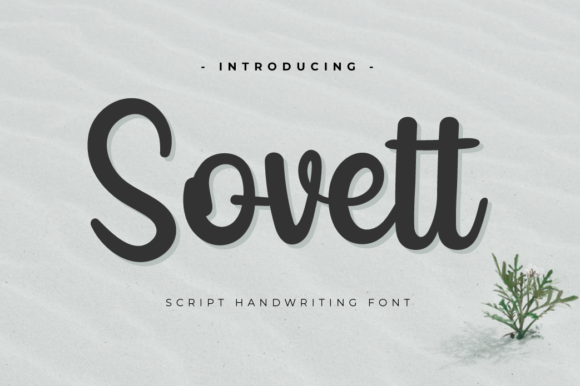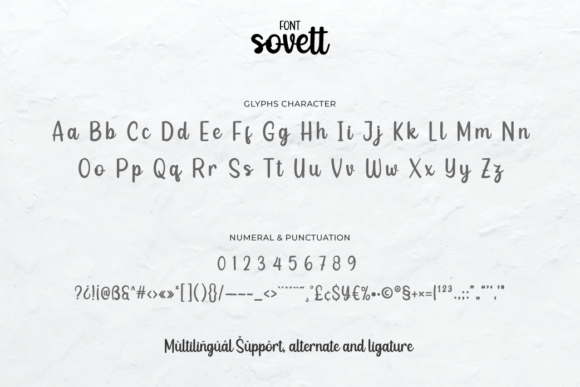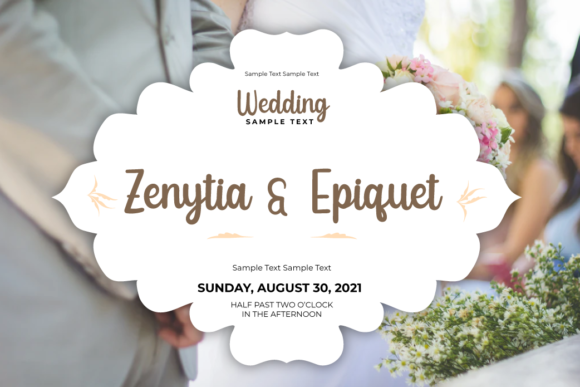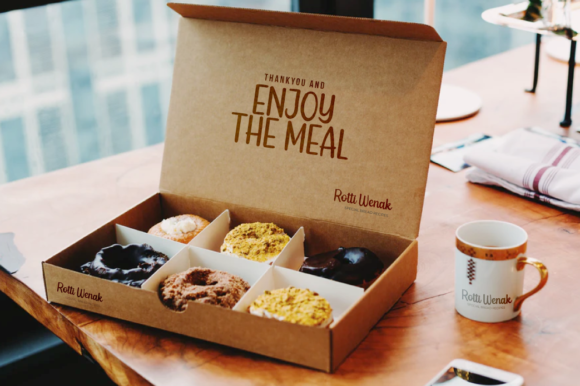
About Sovett Font
Sovett is a beautiful and elegant handwritten font with a touch of daintiness. It is designed with intricate details and delicate swashes, adding a unique and sophisticated look to your designs. This font is perfect for various crafty projects, from letterheads and titles to stationery and beyond.
The elegant and graceful nature of Sovett makes it ideal for creating refined and stylish designs. Each letter is carefully crafted with precision, capturing the essence of sophistication and beauty. The delicate swashes that accompany the font add an extra touch of charm and flair, enhancing the overall aesthetic appeal.
Whether you are designing a professional letterhead, creating captivating titles, or crafting beautiful stationery, Sovett will elevate your designs to new heights. Its versatility allows it to be used in a wide range of projects, giving your work a distinct and original look.
The unique and original style of Sovett will capture the attention of your audience and leave a lasting impression. Its daintiness and elegance make it suitable for a variety of applications, including branding, packaging, invitations, and more. The intricate swashes add a touch of whimsy and sophistication, making Sovett an excellent choice for designs that require a refined and stylish touch.
Sovett’s appeal lies in its ability to convey a sense of sophistication and beauty. The font’s intricate details and delicate swashes create a visually stunning display, perfect for adding a touch of elegance to any project. Its versatility allows it to be used in both formal and informal settings, giving you the freedom to explore various design possibilities.
In summary, Sovett is an elegant and dainty handwritten font that brings a touch of sophistication and charm to your designs. Its delicate swashes and intricate details make it perfect for a wide range of crafty ideas, from letterheads and titles to stationery. Embrace the originality and beauty of Sovett, and let it enhance the visual appeal of your creative projects.